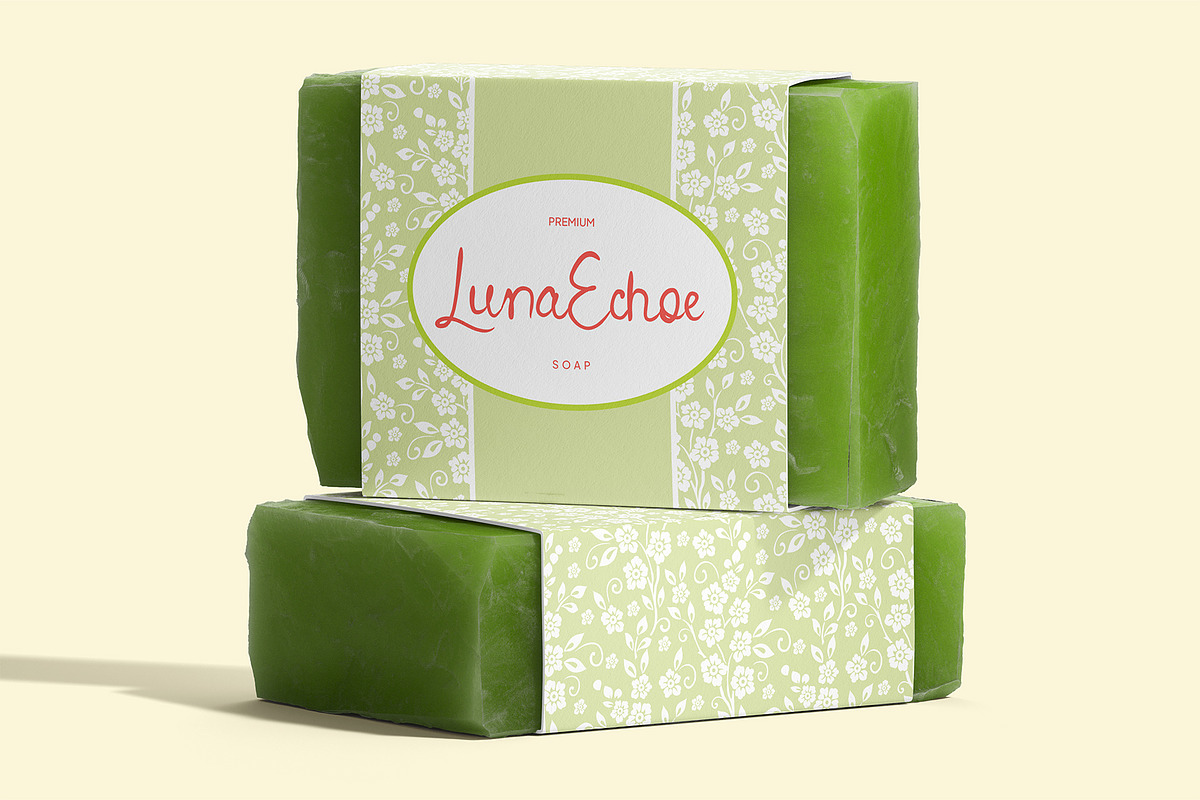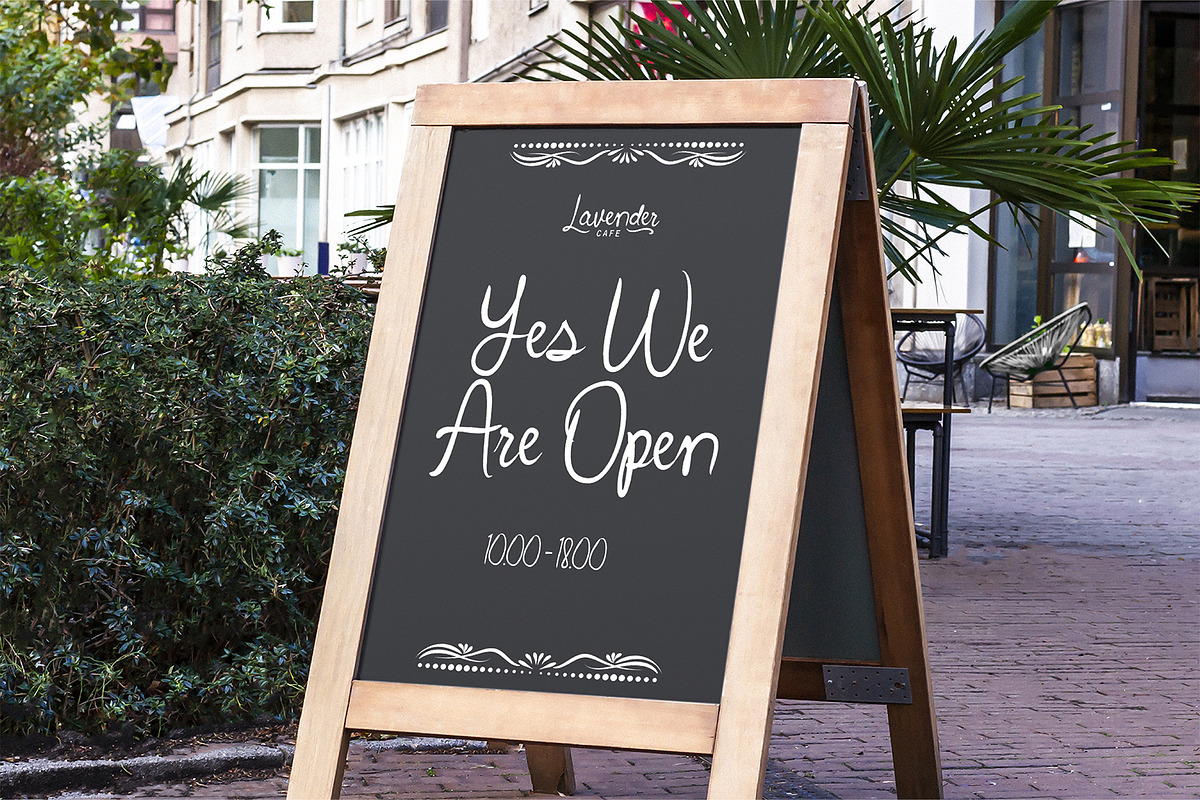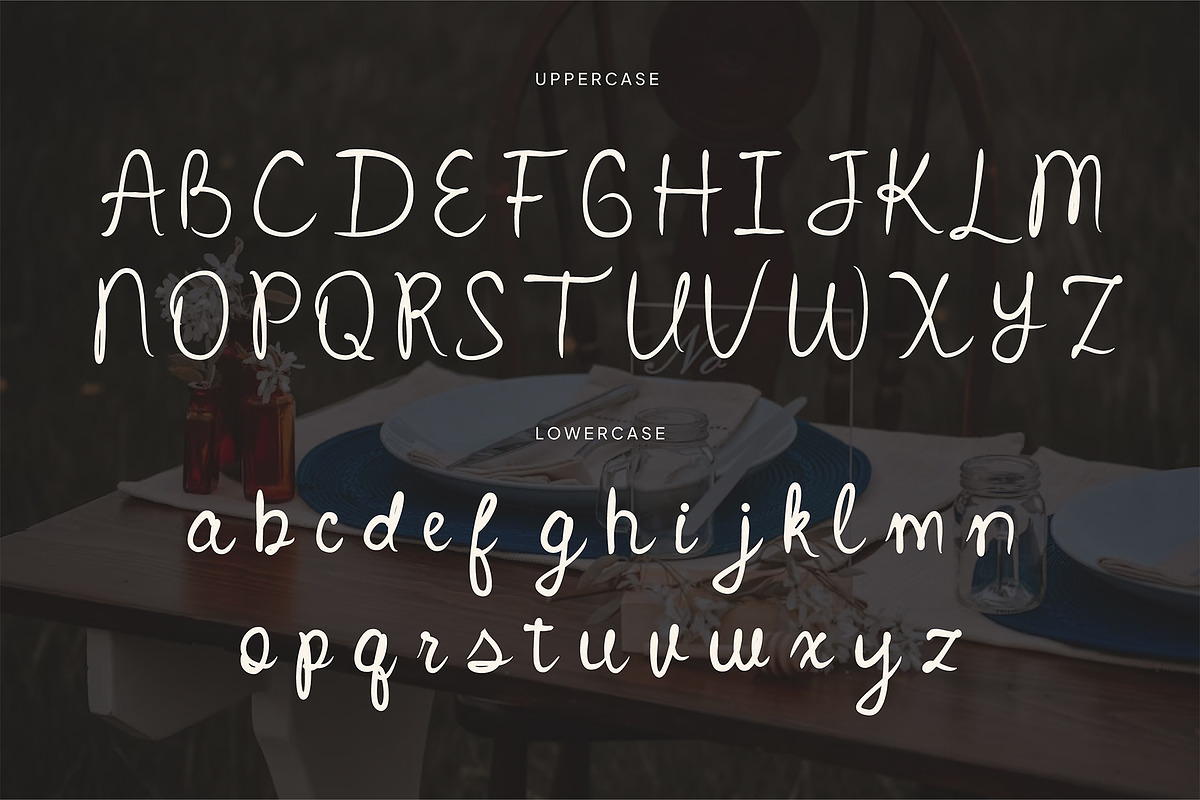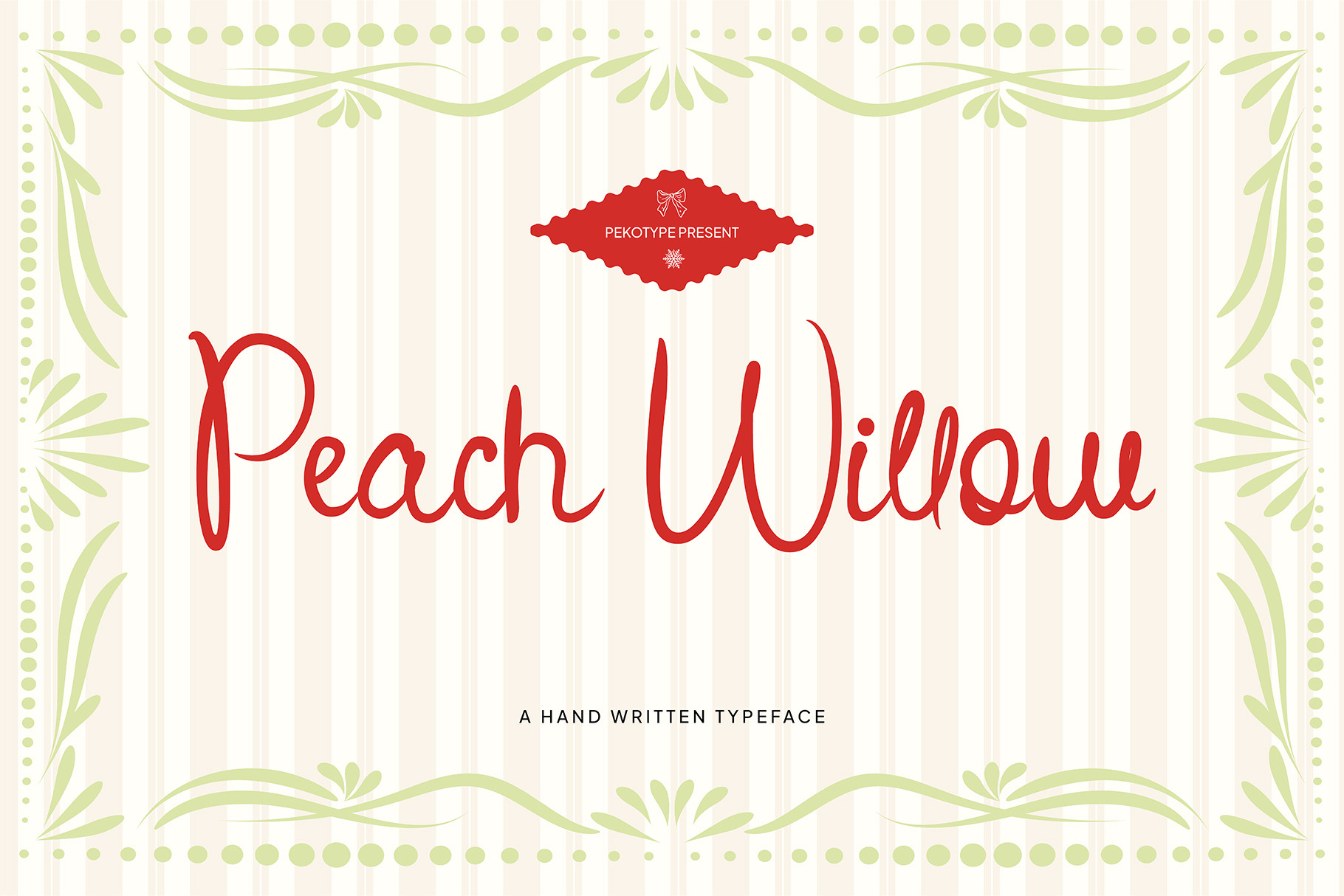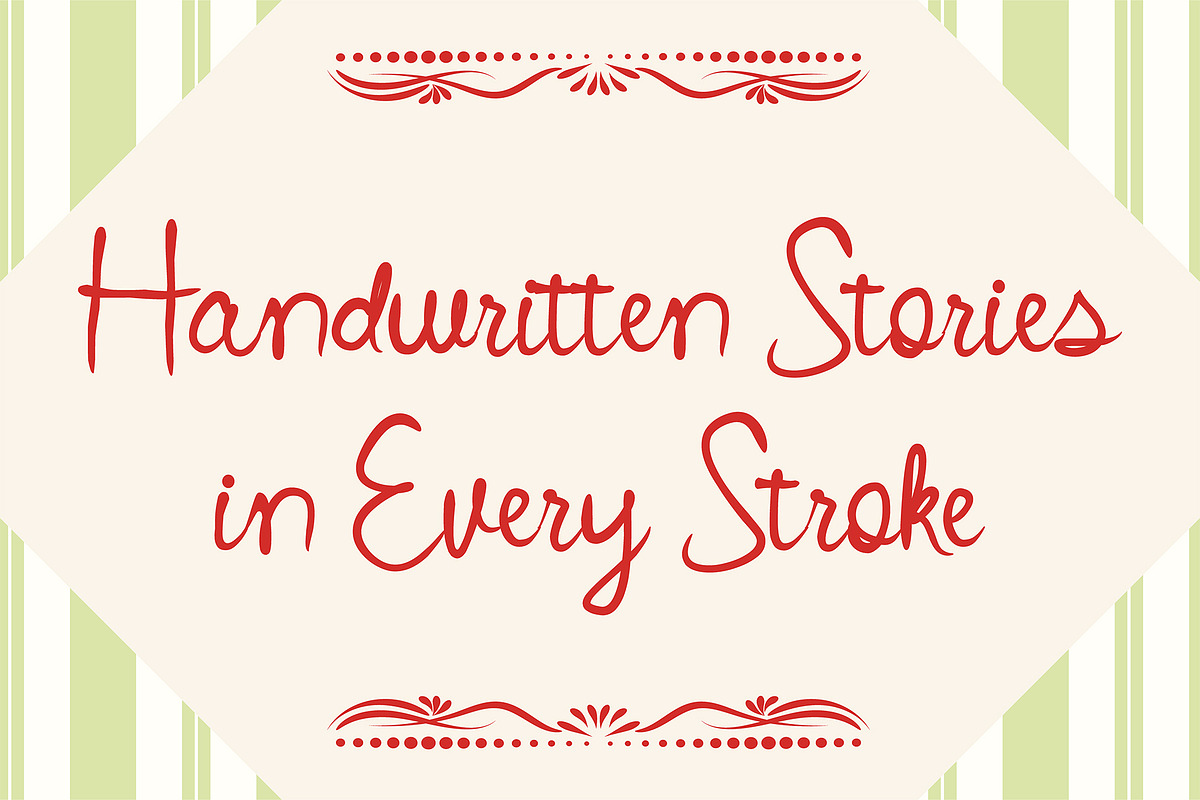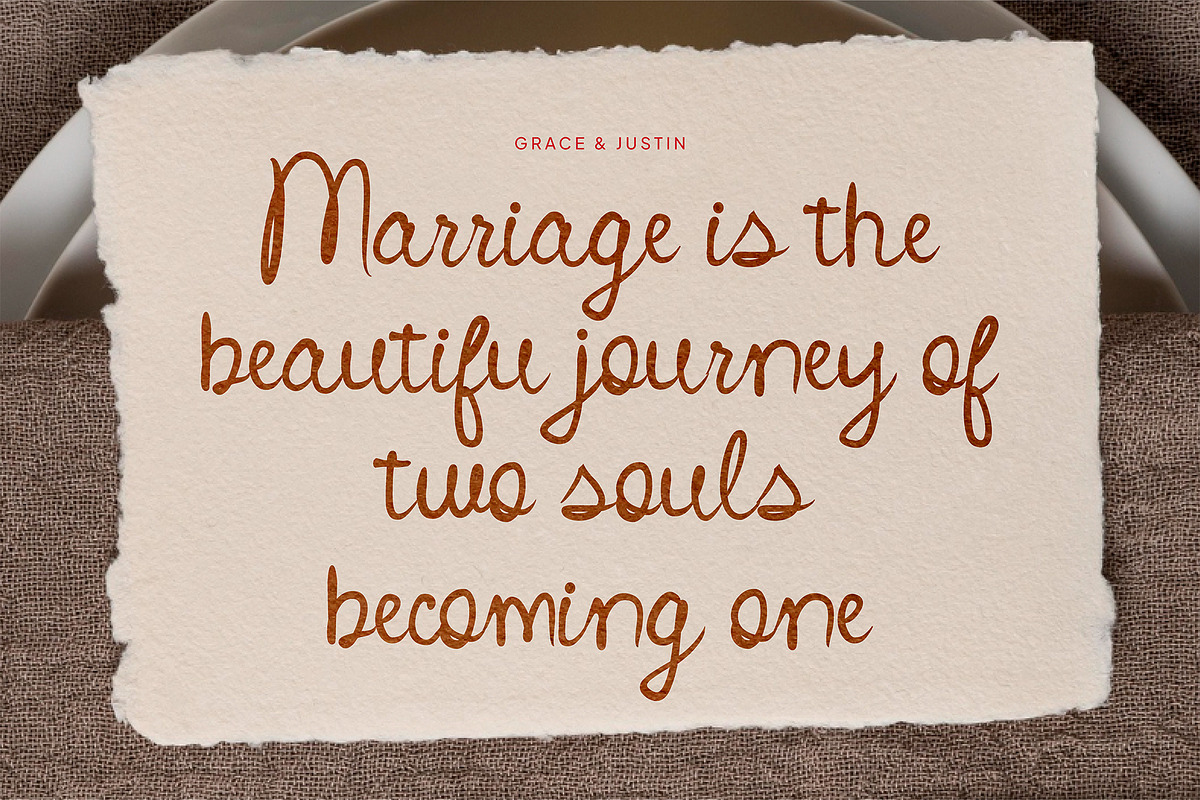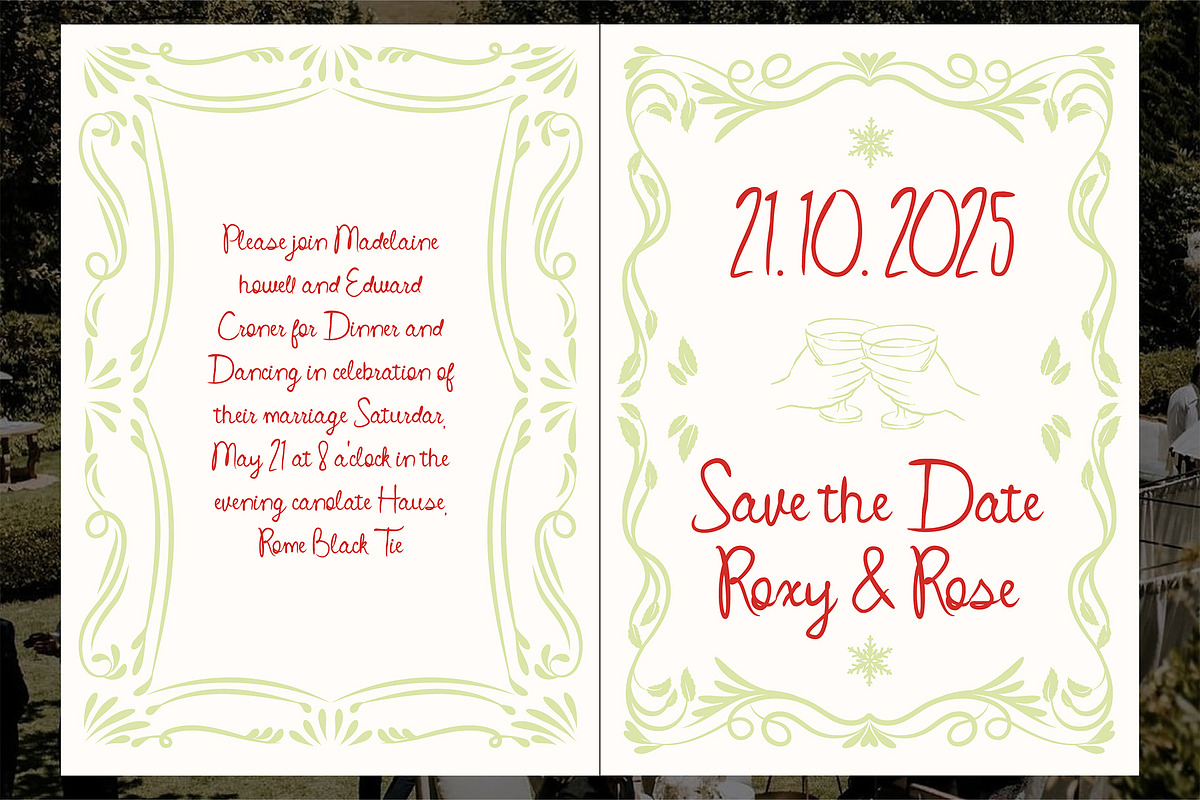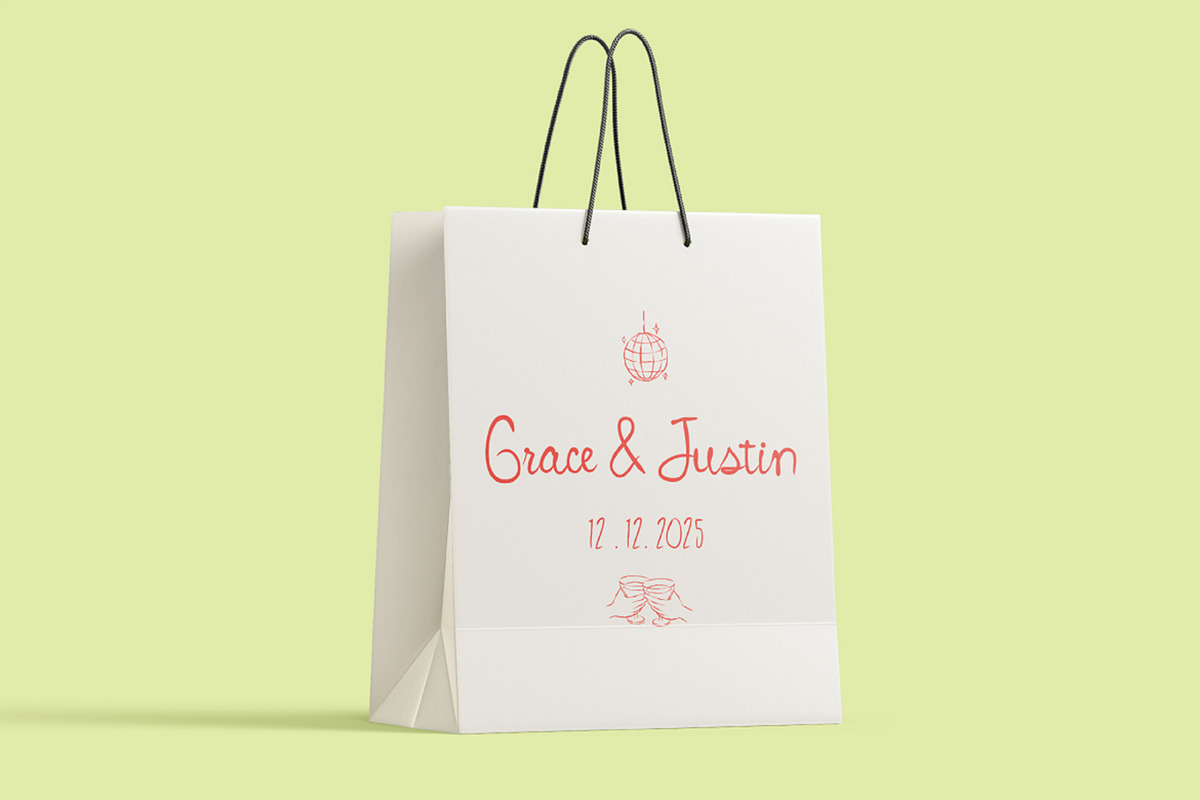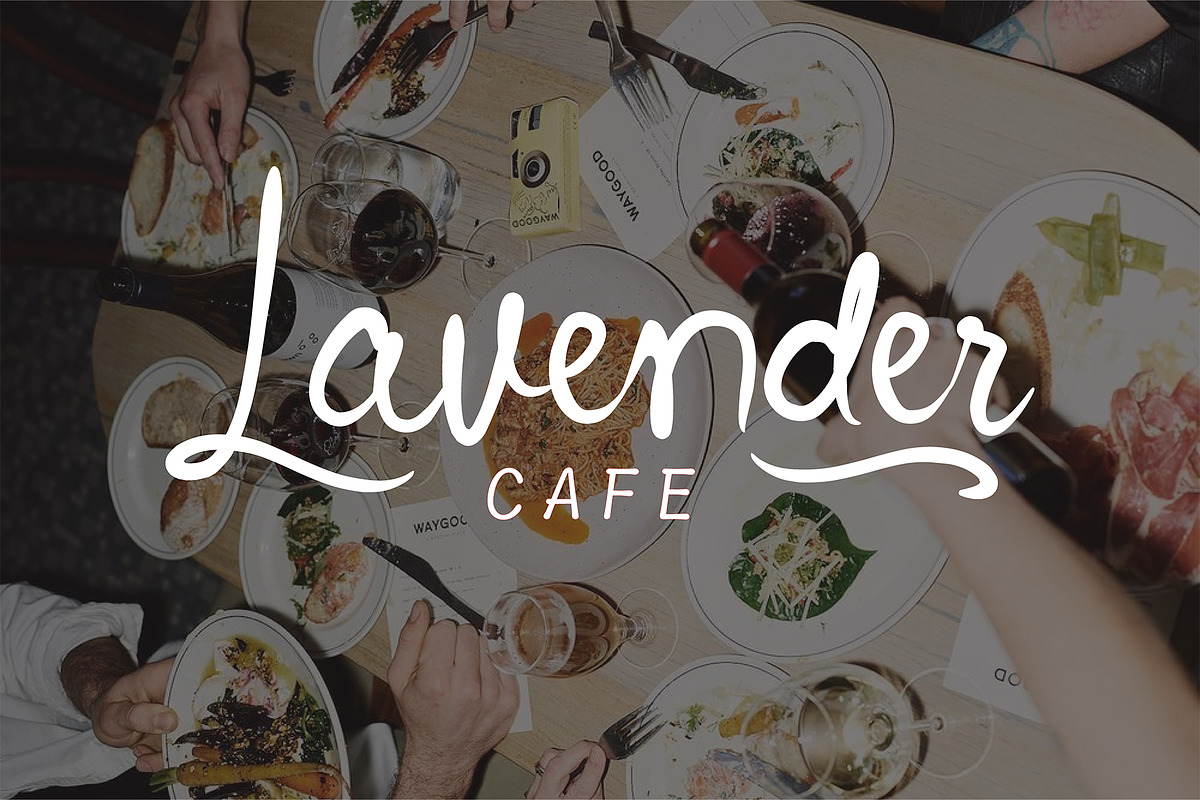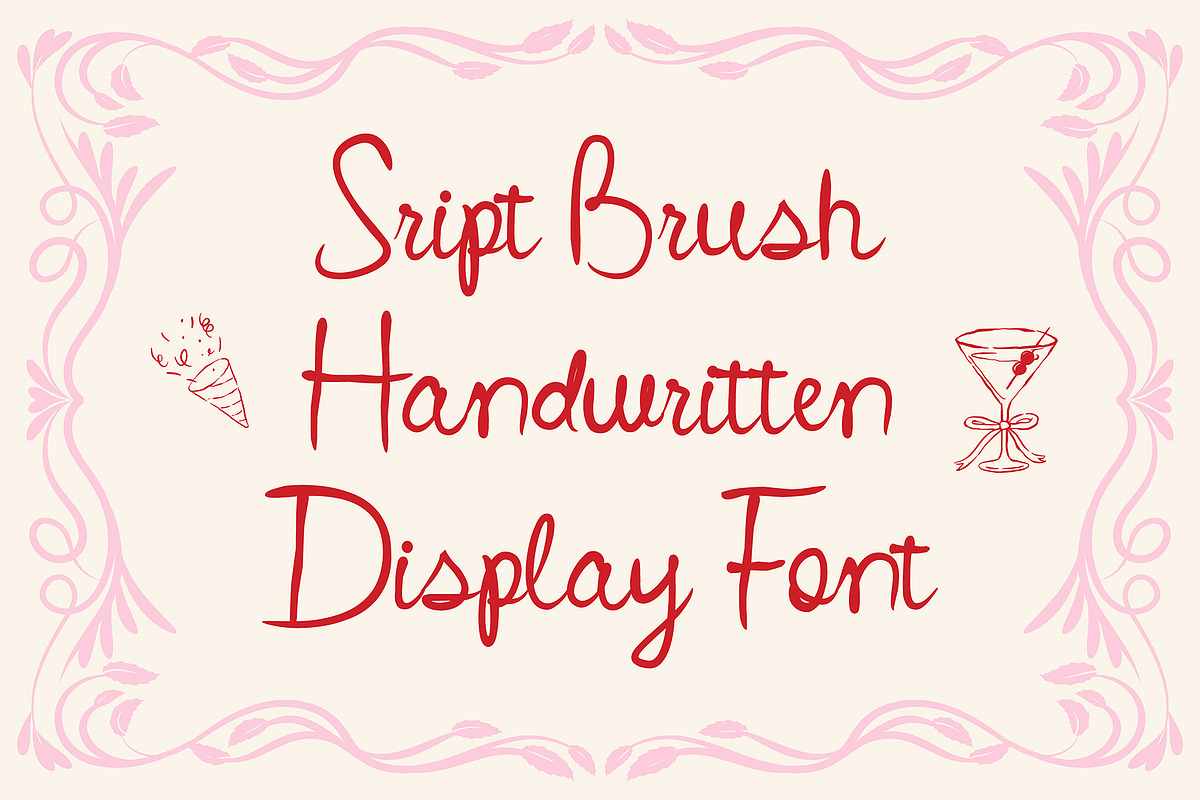
Peach Willow - Cute Handwritten Font
Introducing PEACH WILLOW, a delightful handwritten font that captures the heart with every curve and stroke. With a whimsical, cute aesthetic inspired by French illustration styles, this font brings personality and warmth to your designs.
Perfectly suited for branding, café menus, wedding invitations, product packaging, and social media graphics, PEACH WILLOW adds a playful yet elegant touch wherever it’s used. Each letter feels hand-crafted, making your message feel more personal and heartfelt.
Whether you're designing for a cozy coffee shop, a charming boutique, or a dreamy wedding event, PEACH WILLOW delivers a storybook-like vibe that turns heads and melts hearts.
- Handwritten style with a soft, flowing rhythm
- Cute, charming, and approachable letterforms
- Ideal for logos, branding, wedding designs, and more
Fall in love with handwriting again—PEACH WILLOW is your go-to font for making memories, not just designs.